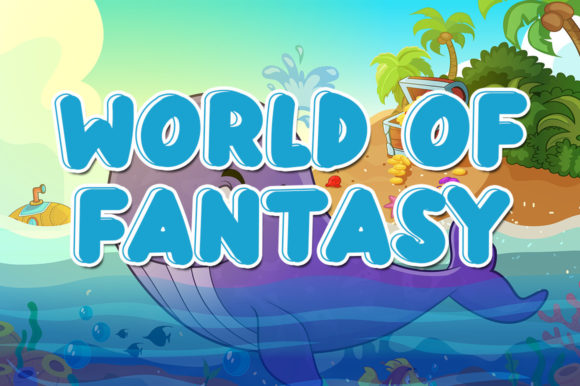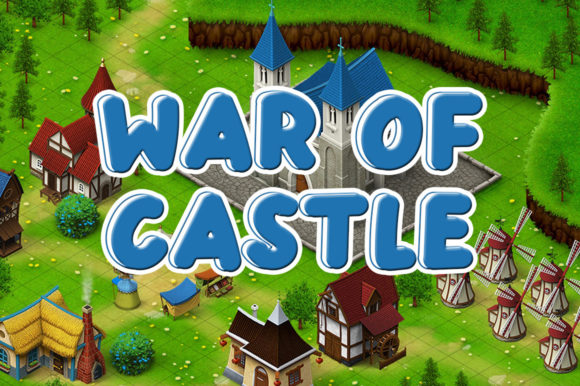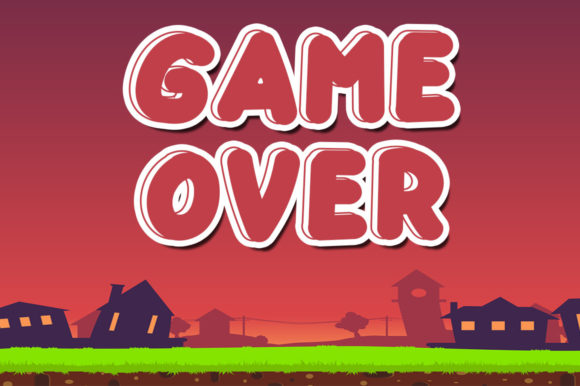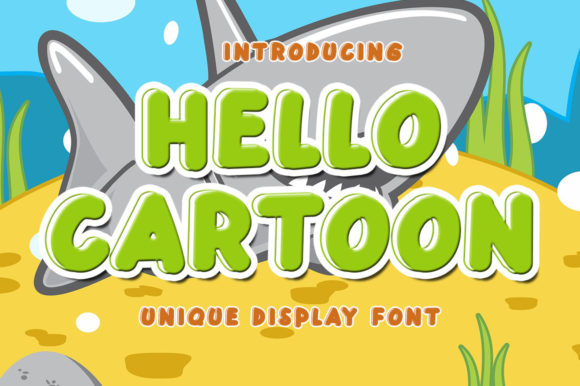
Hello Cartoon Font: The Perfect Addition to Your Children’s Design Projects
Are you a designer or crafter looking for a fun and playful font to add to your children’s design projects? Look no further than Hello Cartoon Font! This cool, bubbly, and fun display font is perfect for creating eye-catching designs that kids will love. In this article, we’ll take a closer look at Hello Cartoon Font and explore its features, benefits, and uses.
What is Hello Cartoon Font?
Hello Cartoon Font is a display font designed specifically for children’s themed designs. Its playful and bubbly style makes it perfect for creating fun and engaging designs that kids will adore. The font features rounded edges, soft curves, and a carefree vibe that’s sure to bring a smile to any child’s face.
Key Features of Hello Cartoon Font
- Playful and Fun Style: Hello Cartoon Font has a unique and playful style that’s perfect for kids’ designs.
- Rounded Edges and Soft Curves: The font features rounded edges and soft curves that give it a friendly and approachable feel.
- Perfect for Children’s Designs: Hello Cartoon Font is designed specifically for children’s themed designs, making it perfect for projects such as kids’ party invitations, children’s books, and educational materials.
- Works Well with Bright Colors: The font looks great when paired with bright and bold colors, making it perfect for designs that require a pop of color.
Benefits of Using Hello Cartoon Font
There are many benefits to using Hello Cartoon Font in your design projects. Here are a few:
- Instant Recognition: The font’s playful style and rounded edges make it instantly recognizable as a children’s font.
- Emotional Connection: The font’s friendly and approachable feel helps to create an emotional connection with kids, making your designs more engaging and effective.
- Versatility: Hello Cartoon Font can be used in a variety of design projects, from kids’ party invitations to children’s books and educational materials.
- Ease of Use: The font is easy to read and use, making it perfect for designers and crafters of all skill levels.
Uses of Hello Cartoon Font
Hello Cartoon Font is a versatile font that can be used in a variety of design projects, including:
- Kids’ Party Invitations: Create fun and engaging party invitations that kids will love.
- Children’s Books: Use Hello Cartoon Font to create engaging and interactive children’s books.
- Educational Materials: The font is perfect for creating educational materials, such as worksheets, activity sheets, and more.
- Digital Designs: Use Hello Cartoon Font in digital designs, such as social media graphics, blog posts, and more.
Tips for Using Hello Cartoon Font
Here are a few tips for using Hello Cartoon Font in your design projects:
- Pair with Bright Colors: Pair the font with bright and bold colors to create a fun and engaging design.
- Experiment with Different Sizes: Experiment with different font sizes to create visual interest and hierarchy in your design.
- Use in Combination with Other Fonts: Use Hello Cartoon Font in combination with other fonts to create a unique and visually appealing design.
Hello Cartoon Font is a fun and playful display font that’s perfect for children’s themed designs. Its playful style, rounded edges, and soft curves make it a great addition to any design project. With its versatility, ease of use, and emotional connection, Hello Cartoon Font is a must-have font for designers and crafters who work with kids’ designs. So why wait? Download Hello Cartoon Font today and start creating fun and engaging designs that kids will love!